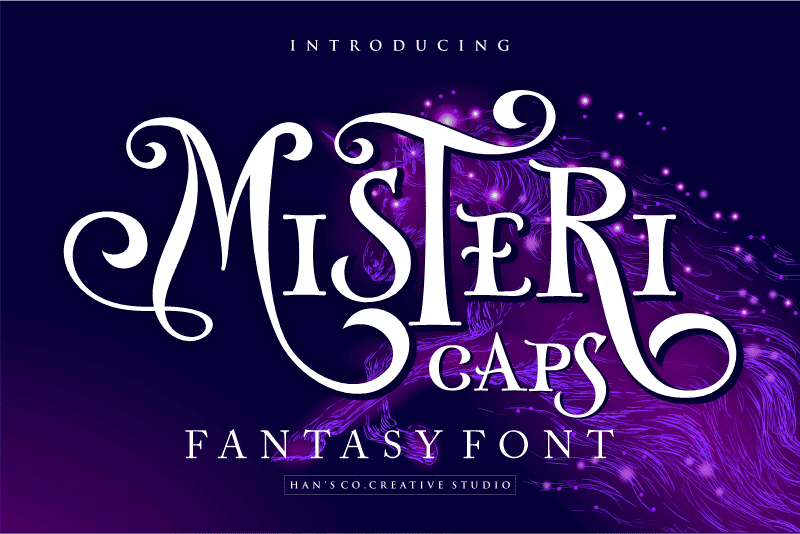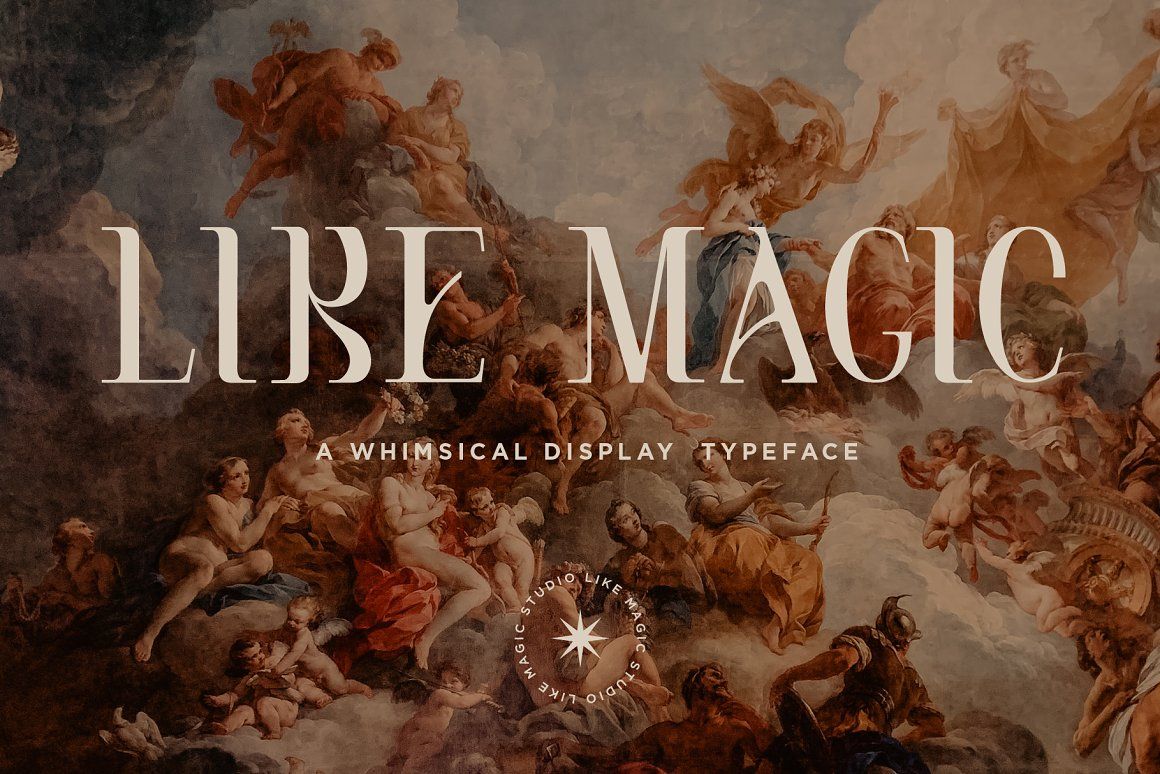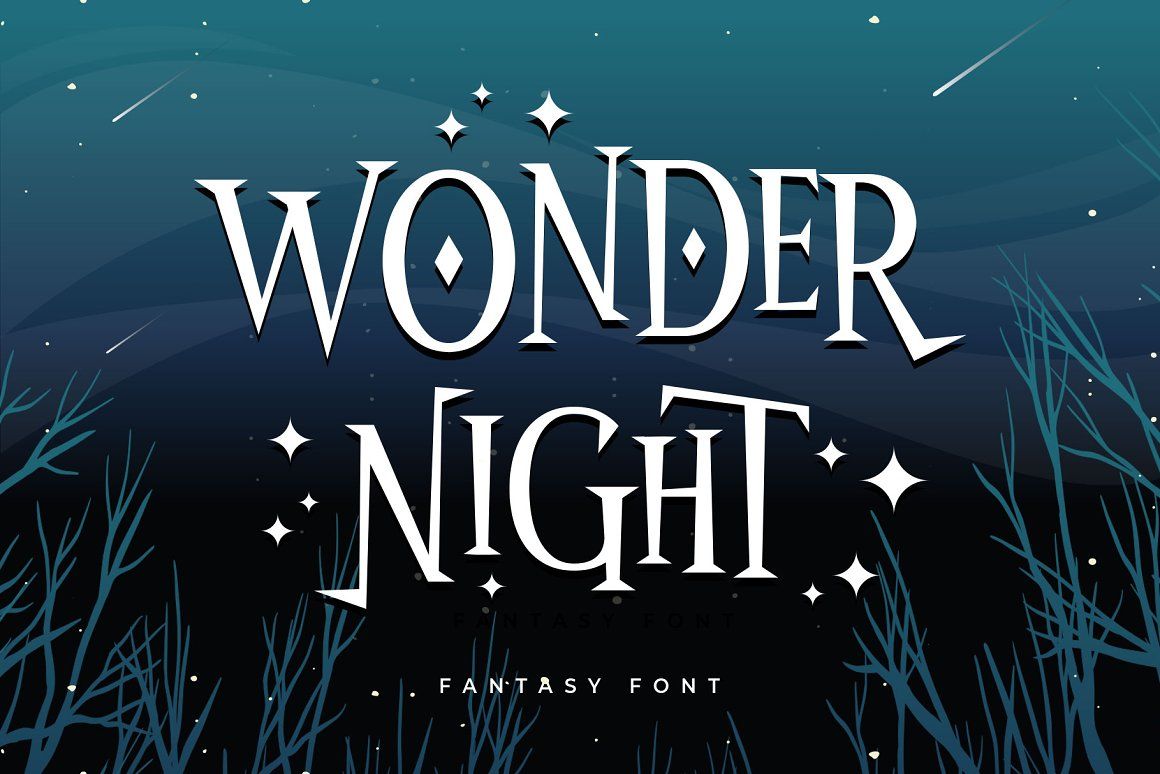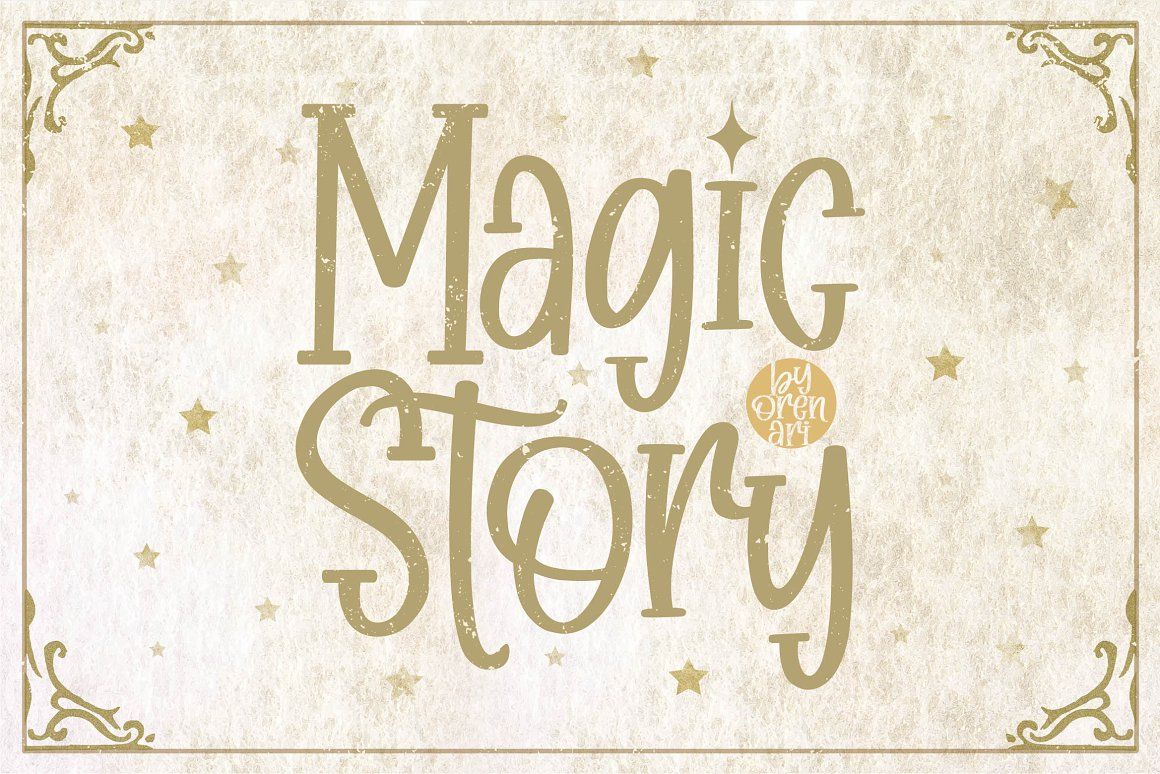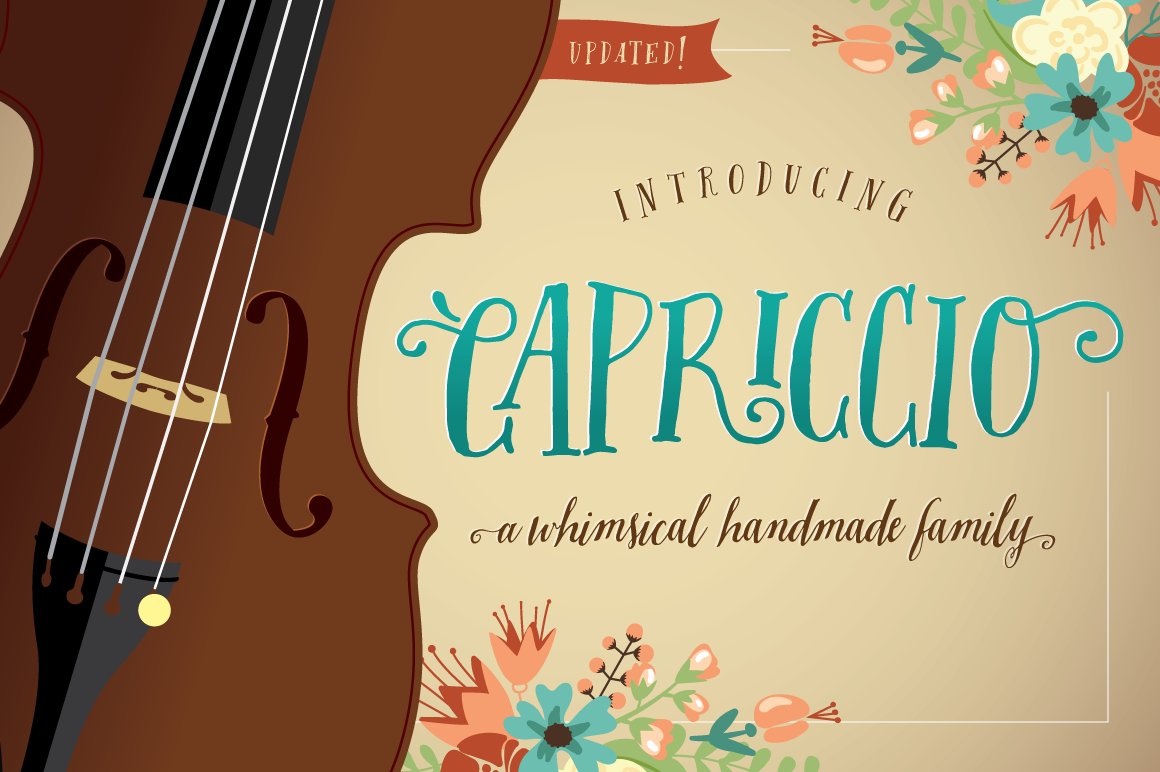
Be Creative with Whimsical Fonts and 10 recommendations!
A font is a visual equipment in design used to communicate ideas about certain themes you desire. You can always use one of the thousands of fonts available, but you will need more than randomly choosing one font to deliver your ideas. Let’s say you want to make fairytale-themed invitation cards. Of course, you want to make them look magical. That is why whimsical fonts are available for you to use.
What Are Whimsical Fonts?
Have you ever seen unusual fonts with certain shapes and strokes that are visually unique and playful? Those fonts have a high chance of being considered as whimsical fonts. The main characteristic of this font is its unusual shape, which is only suitable for certain themes. These fonts are often equipped with ornamental elements to elevate the intended themes.
Whimsical fonts are intentionally made to look strange and unique. Choosing these fonts can be used to narrate and strengthen ideas related to fun and fictional themes due to their styles that tend to be casual and somewhat unusual. This font is not commonly used in business and academic settings.
What Is the Psychology Behind Whimsical Fonts?
The role of font is undeniably important in a design. It is a communicative means that will influence how the reader receives the information. Fonts also give additional artistic value, supporting the graphic elements in a design, along with color palette selection. All the mentioned combinations can create an emotion you want to achieve in your design.
There are many fonts available, which will increase every day, including for whimsical fonts. This type of font is made, of course, with a purpose. The main purpose of this font is mostly for decorating. This font is made uniquely. Some have swirly edges, some have asymmetrical lines, and others have decorative elements to emphasize a certain theme.
A unique, quirky font is a weapon to catch the reader’s attention, especially if used as a design headline. This will link to the advertising value of the design. Say you want to sell a DIY kit, then you have to choose a font that can present a playful touch to your logo or website page. It creates an identity for your product, and a whimsical font is a good choice.
For the reader, this font can create a casual atmosphere. It carries more feelings because the style used varies, different from formal fonts that are usually straight and clean, making it focus more on the direct written message. With whimsical fonts, the message can also be delivered indirectly through the theme and font style. In short, whimsical fonts are the best for you if you have a ton of creative thoughts.
Which Theme Suits Whimsical Fonts the Most?
Due to its visual characteristics, some themes are only best with whimsical fonts. The lists are made for you below.
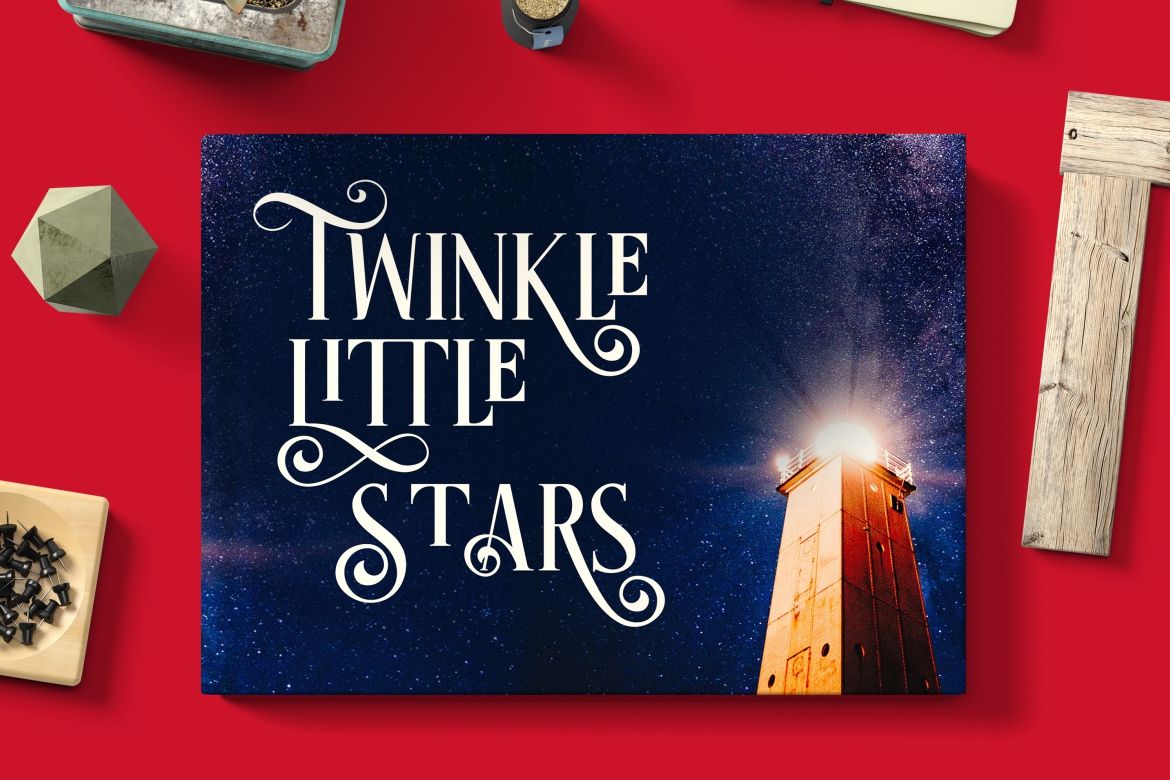
- Children-themed Design
This theme is always identical to fun and visually playful. Your job is to find the font that matches the vibe. Imagine if you are using a formal font like you usually see in a business presentation; it will not visualize the intended theme. For this reason, using goofy, unusual fonts with irregular shapes and childish edges is highly necessary!
- Magical-themed Design
Similar to the children’s theme, this theme must look visually attractive and made with magic. Choosing whimsical fonts with details like sparkle surrounding the letters or decorative strokes will add a magic touch to the design. A little dramatic font will be well-paired with this theme.
- Festive Season Design
You cannot imagine a festive season theme with boring, straight font. There are many fonts with strokes and details that radiate the festive vibe. For example, a whimsy font with bold, curled strokes that look like handwriting will make its best attempt to make the design look fancy and classic, perfect for Christmas design.
- Retro-themed Design
Retro is always a never-ending theme that people always choose. It links to a vintage and nostalgic vibe yet still presents a vibrant and playful touch, like the old days. Many whimsical fonts with bold bodies and unique edges suit the classic and youth feels needed for the retro theme. With a perfect graphic layout, your design will stand out.
Whimsical Fonts Recommendation
Enough with the explanation. Now, you will be offered 10 font recommendations you never knew you needed.
1. Wisp Typeface
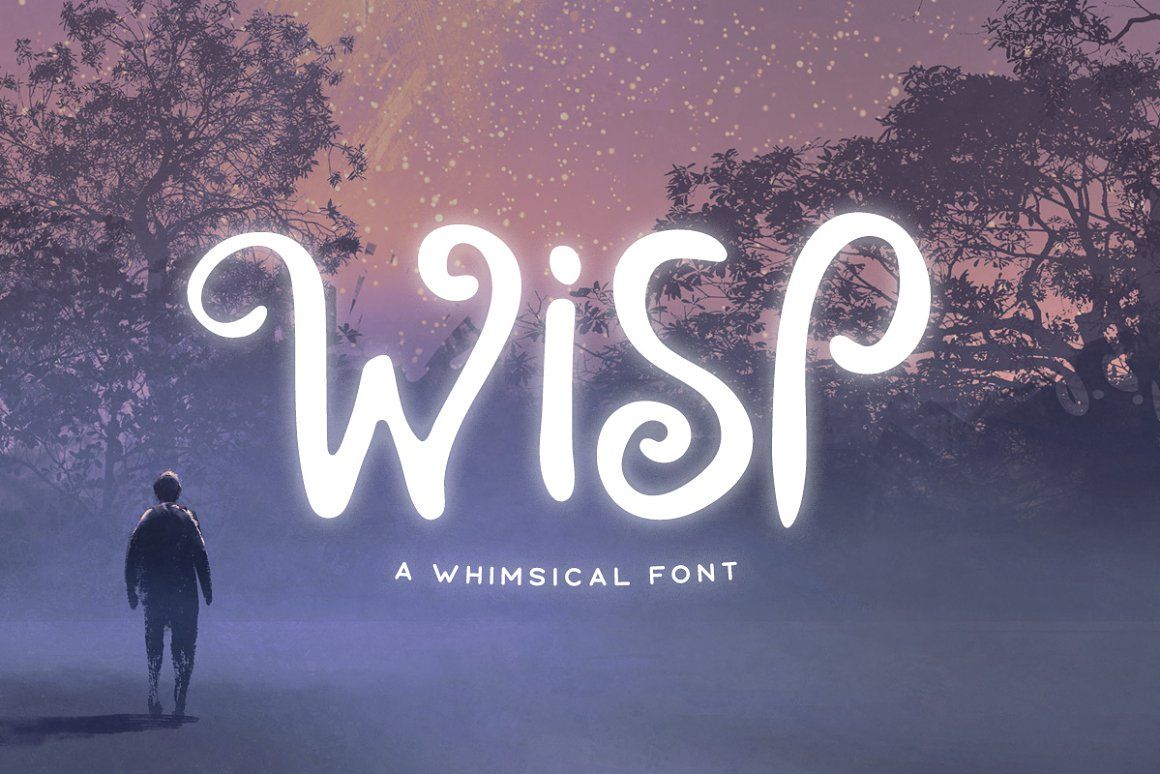
A true magic at first glance! This font will be suitable for a magical-themed project due to its curled curves and decorative elements. The bold form also makes a statement, so using this font as the headline will be best. This font comes in uppercase, lowercase, numbers, and punctuation. You can adjust the message you are trying to deliver in just one font.
2. Mirthful Charlie
This is a fun and quirky font you can use for children-themed projects. Use this font to express the playful vibe, and it will easily catch attention due to its bold and artistic shape. This font also has uppercase, lowercase, numbers, punctuation, and ligature, making it suitable for every language.
Whimsical & Decorative font Inspiration from HansCo Studio
You have been provided with information on whimsical fonts, from the definition to the numerous recommendations. Now that you know of it, you can make a design that has the power to deliver the message and the ambiance you want to share. Most importantly, let your playful and quirky ideas be assisted with this font!